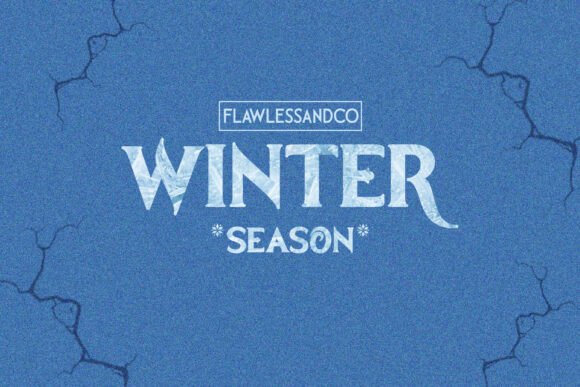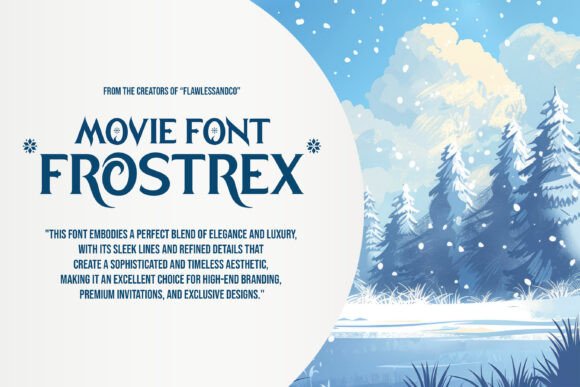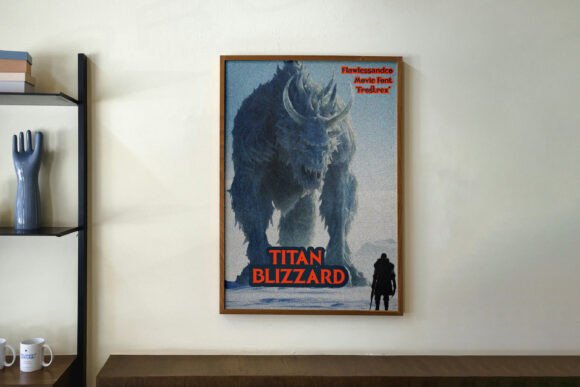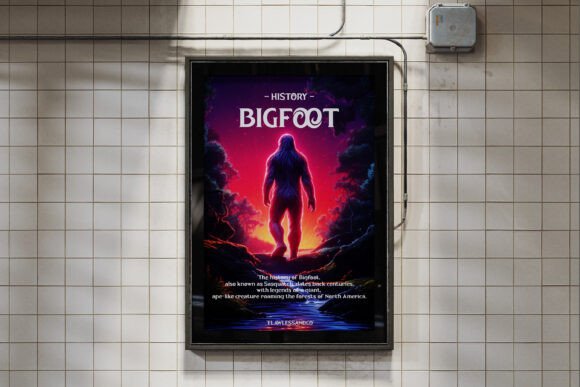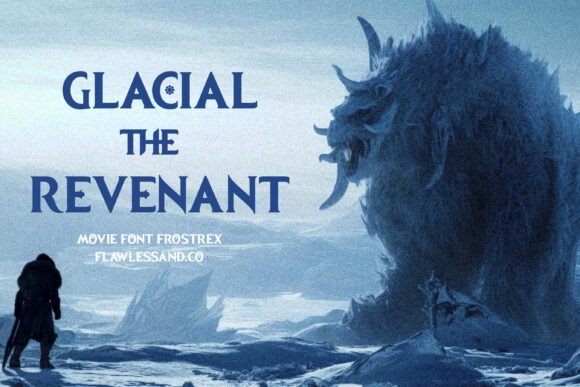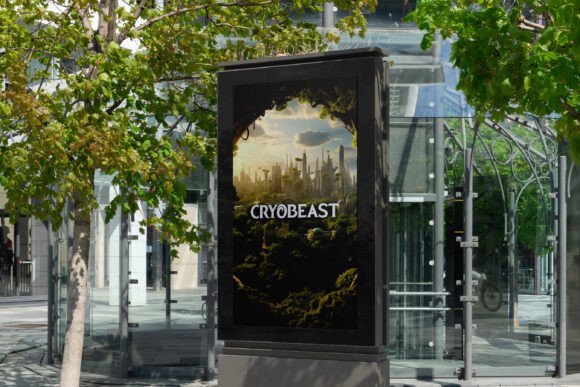
Discover the Magic of Frostrex Font
Have you ever been struck by the spark of creativity while watching a Disney classic, imagining the enchanting world of fantasy and wonder? As designers, we’ve all been there – searching for that perfect font to bring our imagination to life. Meet Frostrex Font, a magical display font inspired by the timeless charm of Disney. With its delicate, whimsical letterforms, Frostrex Font is the perfect companion for fairy tale-themed projects, children’s books, and fantasy movie posters.
Frostrex Font is more than just a font – it’s a tool to unlock your creativity and transport your audience to a world of magic. Its elegant design makes it suitable for a wide range of projects, from animated film titles to theme park branding. Whether you’re a seasoned designer or a newcomer to the world of typography, Frostrex Font is an invaluable addition to your creative arsenal.
Frostrex Font Key Features
- Font Family: Frostrex Font comes in a single font family with various weights and styles.
- Character Set: Supports a wide range of languages, including Latin, Cyrillic, and Greek alphabets, making it suitable for multilingual designs.
- Size: The font is available in 5 different weights (Thin, Light, Regular, Medium, and Bold) to cater to various design requirements.
- Unique Characteristics: Frostrex Font features a unique, modern design with subtle texture and gradient effects, adding a touch of sophistication to any design project.
Frostrex Font Review
Overall, I was quite impressed with the Frostrex Font. ✨ The font’s unique blend of modern and mystical elements makes it perfect for a wide range of projects, from fantasy novels to sci-fi game titles. The designer has done a great job in creating a cohesive and stylish font that is sure to catch attention.
- ✨ The font’s versatility: Frostrex can be used in both digital and print formats, making it a great choice for designers who work on multiple platforms.
- ✨ The unique letterforms: Each character in the font has been carefully designed to create a sense of mysticism and wonder.
- ✨ The font’s scalability: Frostrex looks great in large and small sizes, making it perfect for titles, headings, and body text.
- ⚠️ The font may be too ornate for some projects: While the unique letterforms are a strength of the font, they may not be suitable for projects that require a more straightforward or modern look.
- ⚠️ Limited language support: The font may not be compatible with all languages, which could be a limitation for designers who work on projects that require multilingual support.
Overall, I would give Frostrex Font 4 out of 5 stars. While it has some limitations, the font’s unique style and versatility make it a great choice for designers who want to add a touch of magic to their projects.
Frostrex Font is ideal for:
- Cold-themed designs (e.g. winter, snow, ice).
- High-end or luxury branding.
- Unique or creative typography projects.
Q: What is the recommended font size for optimal legibility with Frostrex Font?
For optimal legibility, we recommend using the Frostrex Font at a minimum size of 12 points (10pt for body text). However, this may vary depending on the design context, screen resolution, and intended audience.